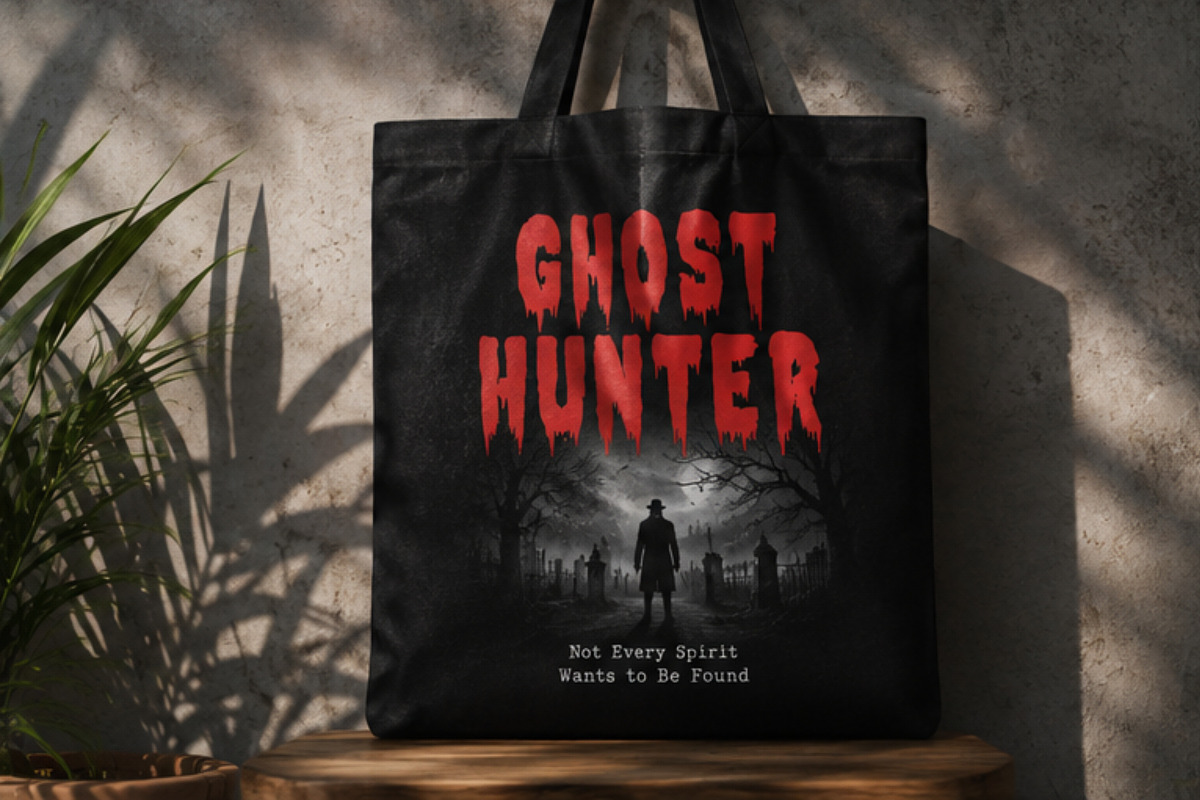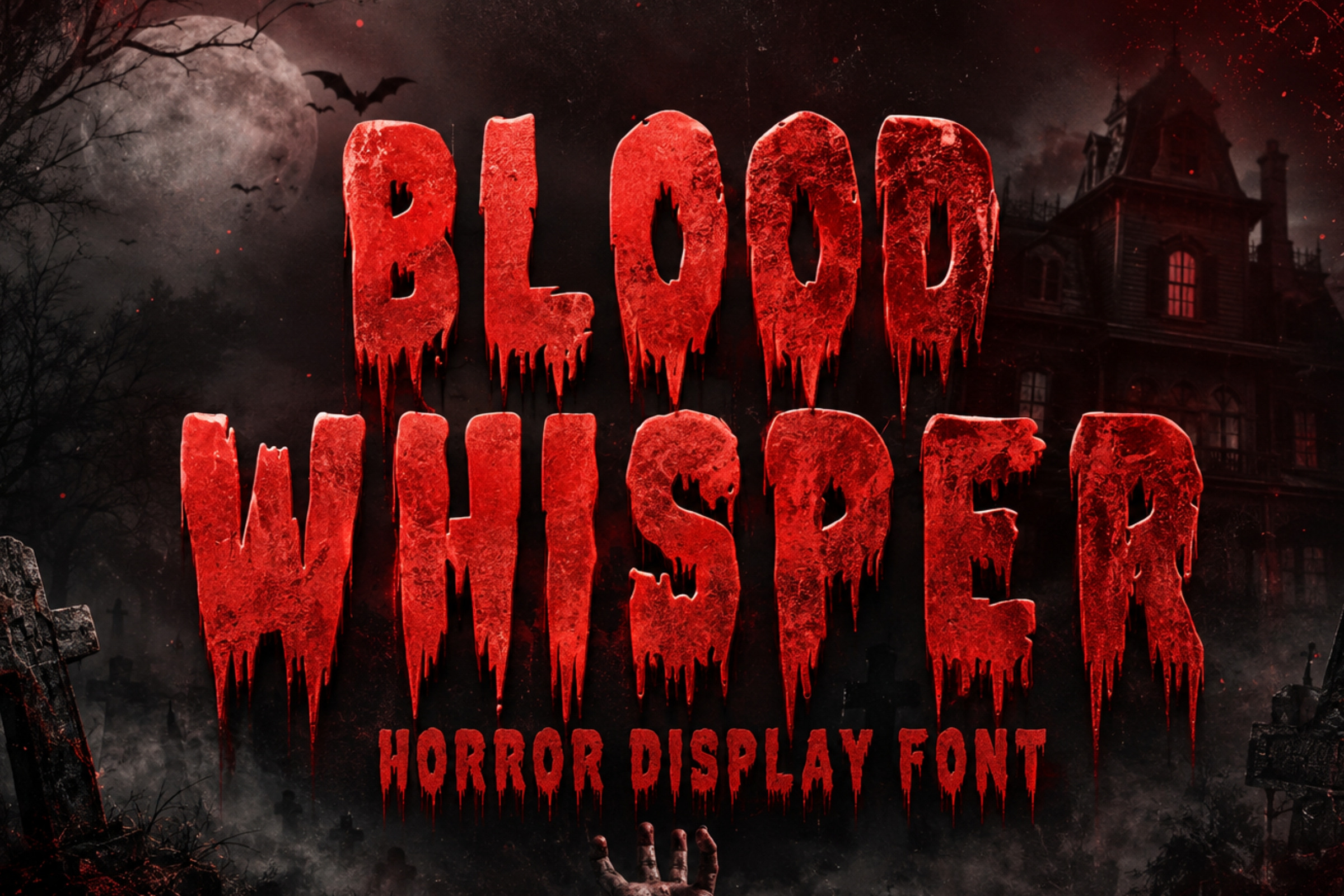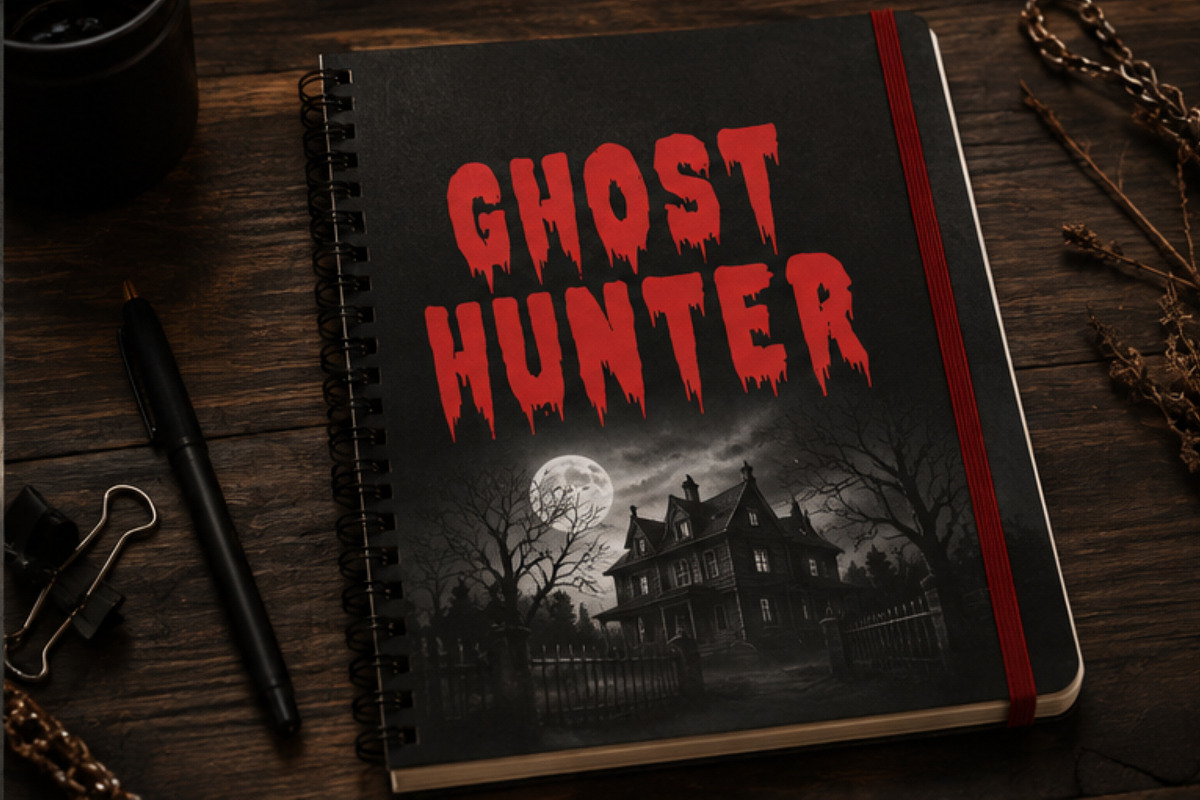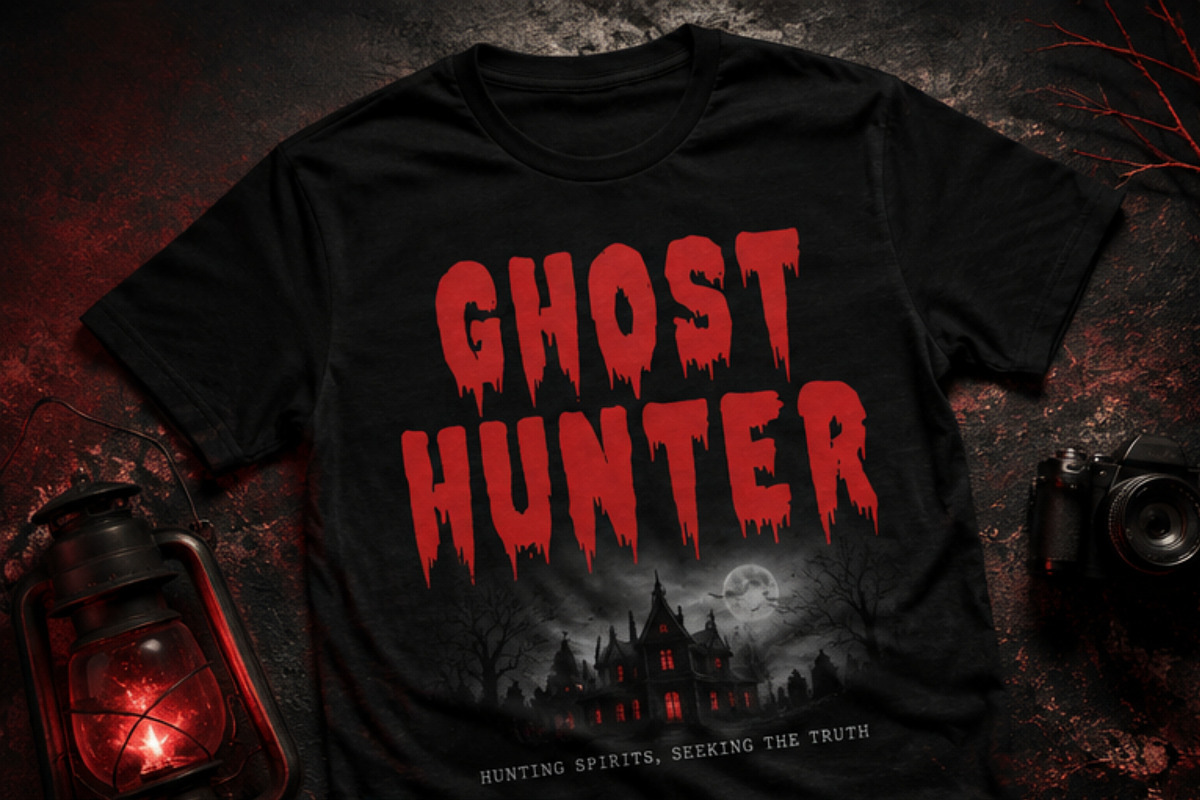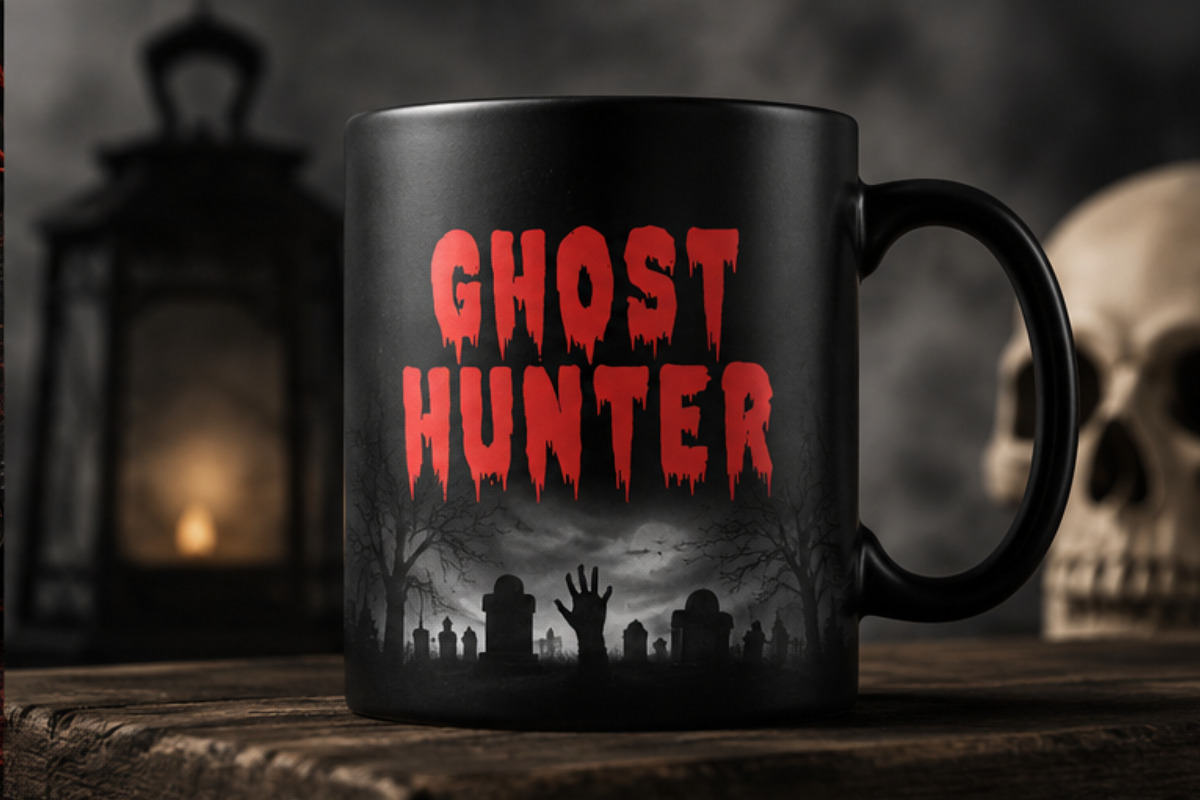
Blood Whisper - Halloween Font
Blood Whisper is a striking horror display typeface designed for projects that need a dark, mysterious, and intimidating visual style. Its irregular letterforms, sharp edges, and dripping details create an authentic horror-inspired appearance while maintaining strong readability.
Perfect for Halloween designs, horror posters, haunted house graphics, scary movie titles, apparel, merchandise, album artwork, gaming graphics, social media artwork, invitations, stickers, labels, and more.
Horror display style Bold and dramatic letterforms Dripping and distressed details Dark supernatural aesthetic Strong visual impact Suitable for print and digital designs Great for large headlines and titles Perfect for horror-themed branding and merchandise